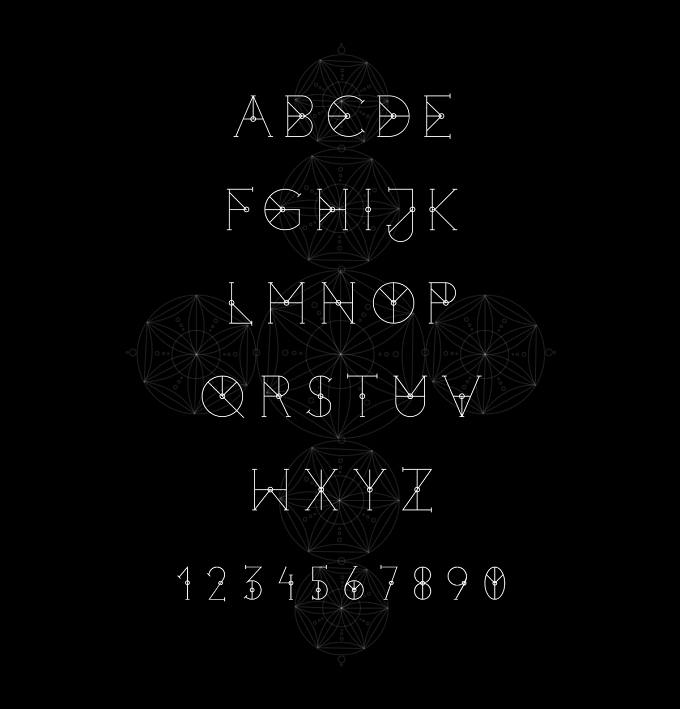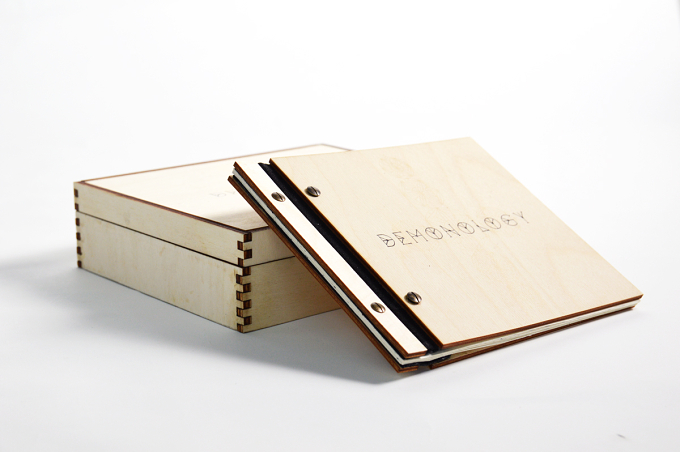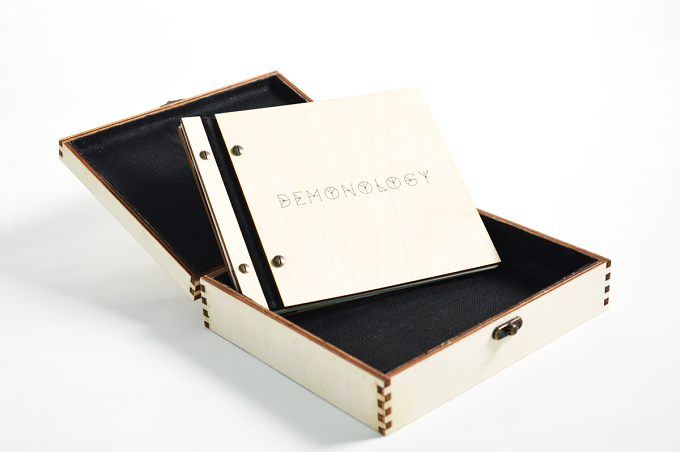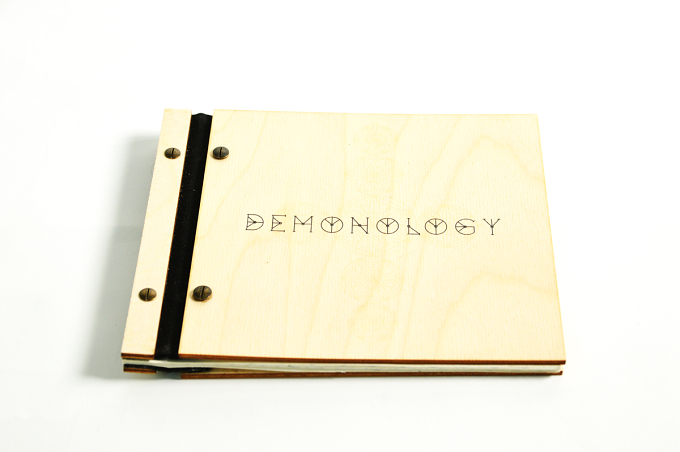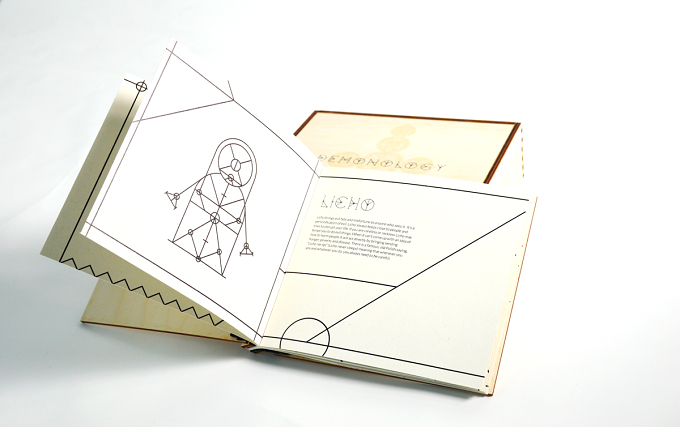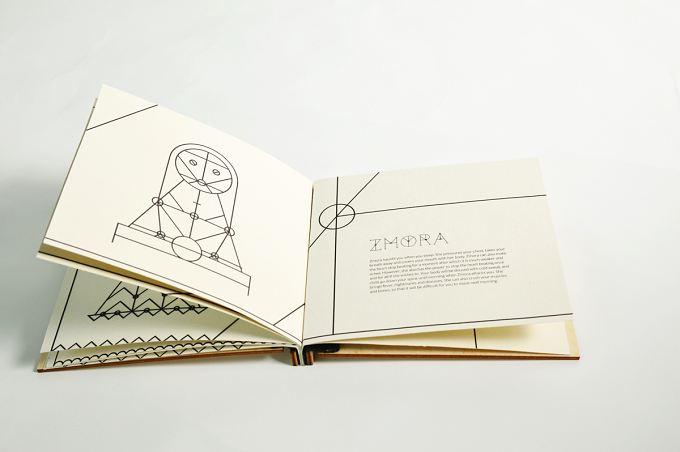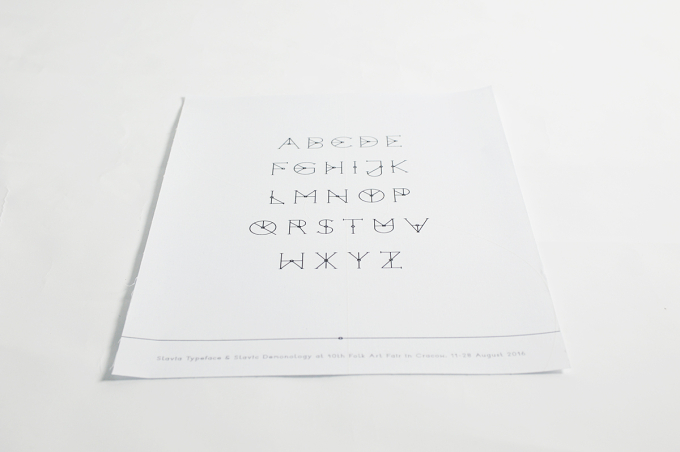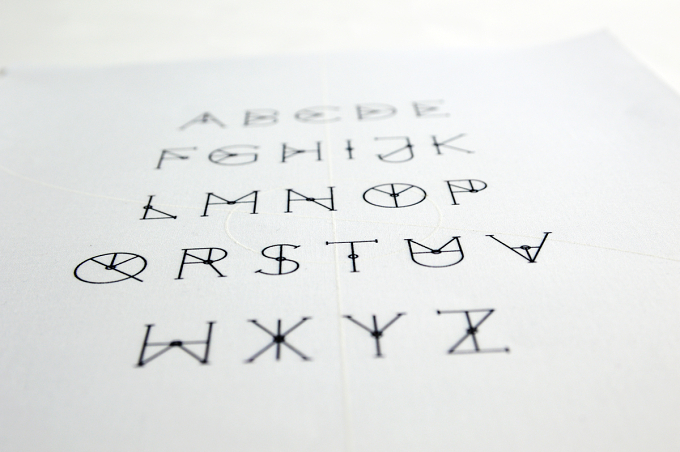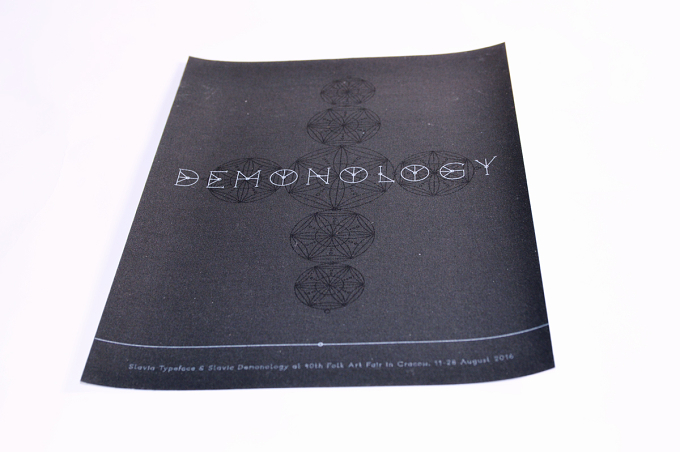
Klaudyna Joczyn
The aim of this project was to create a new visual language in the realms of font design that relies on and relishes the inherent folklore contained in Slavic mythology and culture. Slavia typeface reflects on Slavic symbolism, accompanied by a series of creature illustrations, created out of the letterforms.